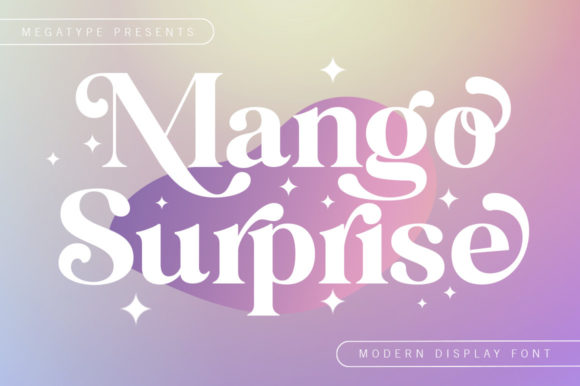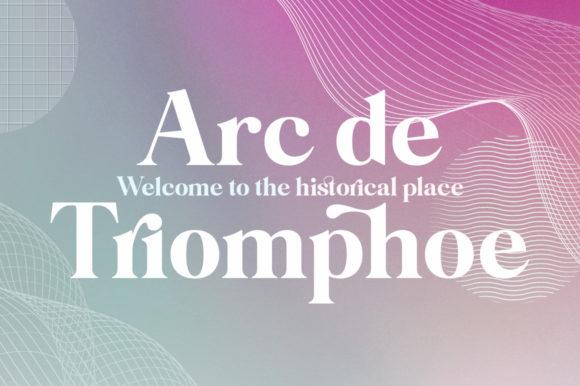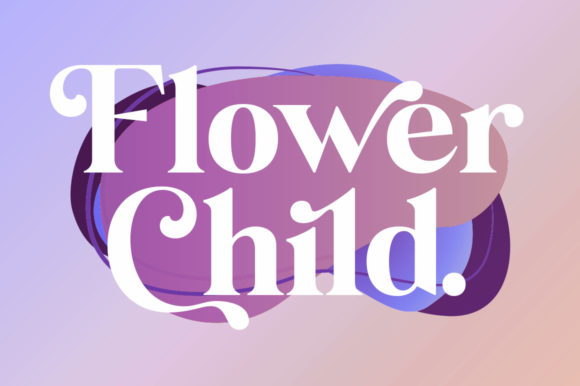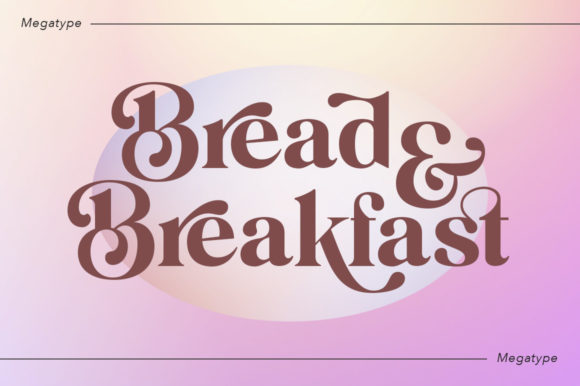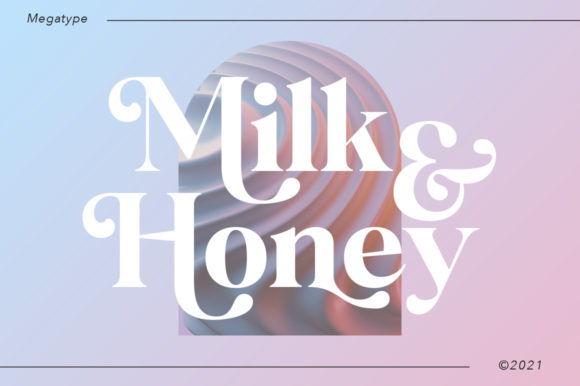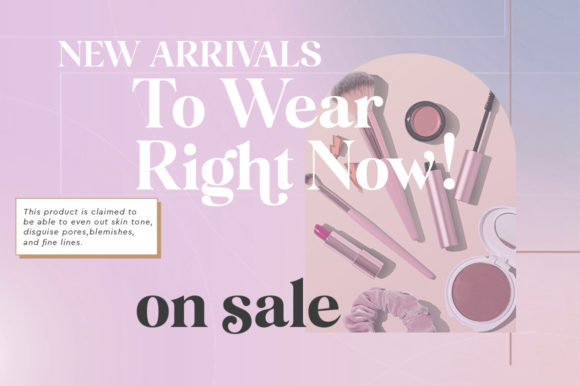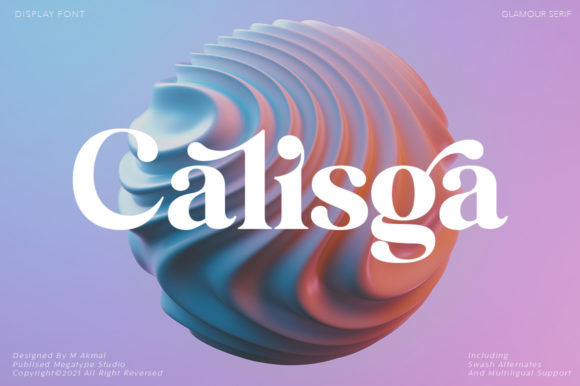
The Ultimate Guide to Calisga Font: Elevate Your Designs with Style
Have you ever been in the middle of a design project, and suddenly, you’re stuck on finding the perfect font? I recall a recent experience where I was working on a branding project for a trendy boutique, and I just couldn’t find a font that captured the essence of the brand. That’s when I stumbled upon the Calisga font, and it completely transformed my design. In this article, we’ll dive into the world of Calisga, exploring its features, and how to make the most of this stunning serif font.
What Makes Calisga Font So Special?
Calisga is a stylish and cool serif font that adds a touch of sophistication to any design. One of its standout features is that it’s PUA encoded, making it incredibly easy to access all the glyphs and swashes. This font is perfect for designers, crafters, and creative hobbyists looking to add a unique flair to their projects.
My Honest Review of Calisga Font
So, what do I love about Calisga? Here are a few things that make it a favorite:
• ✨ Unique and stylish design: Calisga’s chunky lettering makes it perfect for headlines, titles, and emphasis text.
• ✅ Easy to use: The PUA encoding makes it simple to access all the glyphs and swashes, even for those who aren’t font experts.
• 💡 Versatile: Calisga works well for a variety of design projects, from branding and advertising to crafting and DIY projects.
While Calisga is an amazing font, there are a few small quirks to be aware of:
• 🤔 Limited use for body text: Due to its chunky design, Calisga might not be the best choice for large blocks of text.
• ⚠️ May require adjustments for certain languages: Some languages may require additional adjustments to ensure proper kerning and spacing.
The Story Behind Calisga Font
While the true story behind Calisga remains a mystery, it’s clear that the designer was inspired by the world of fashion and luxury. The chunky lettering and elegant swashes evoke a sense of high-end style, making it perfect for branding and advertising projects. Whether the designer was inspired by the streets of Milan or the runways of Paris, Calisga is a true masterpiece.
Font Name Calisga Font
Author Megatype
What is PUA encoding, and how does it benefit Calisga font? PUA (Private Use Area) encoding allows for easy access to glyphs and swashes, making it simple to use and customize the font.
Is Calisga font suitable for body text? While Calisga is a beautiful font, it’s not ideal for large blocks of text due to its chunky design.